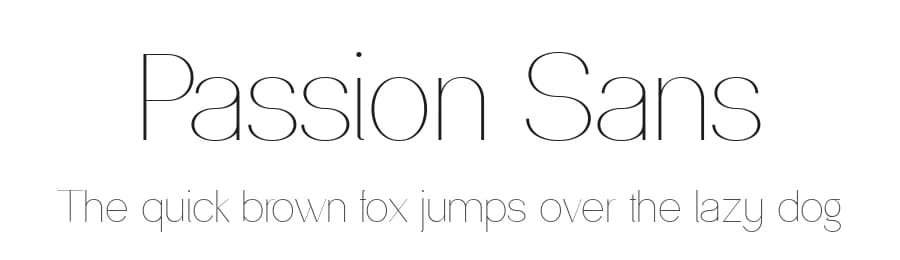
About Passion Sans Font
Passion Sans is a sans-serif font designed by Alan Prescott. It includes 247 glyphs, a regular weight, TTF (TrueType) format, and 214 languages. Passion Sans is free to download; check the license details on this page before commercial use. Sans-serif fonts like Passion Sans work best for clean body text, user interfaces, branding, and modern layouts.
Passion Sans Font is a versatile sans-serif font that works for both headings and body text. Pair it with a contrasting serif or slab serif font to add visual interest and a clear distinction between titles and body copy.